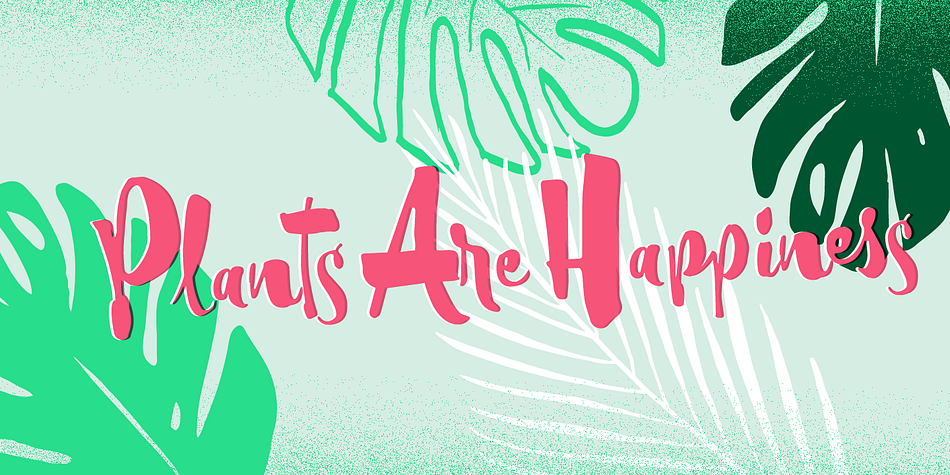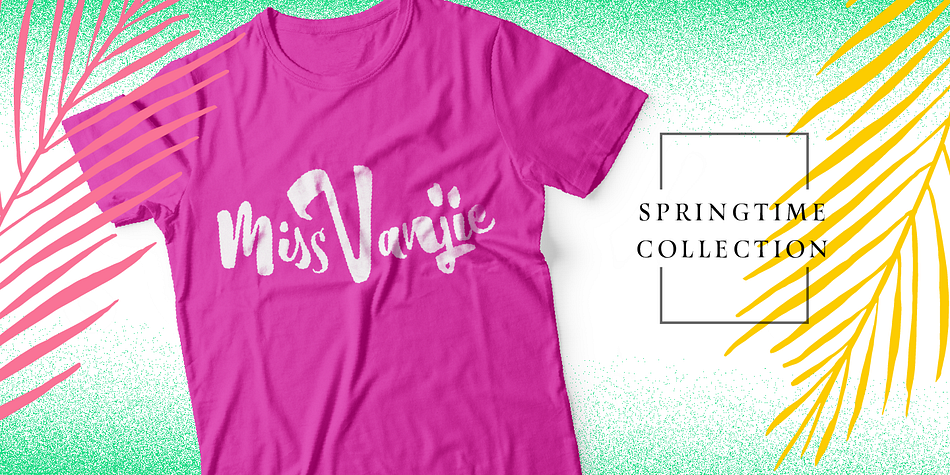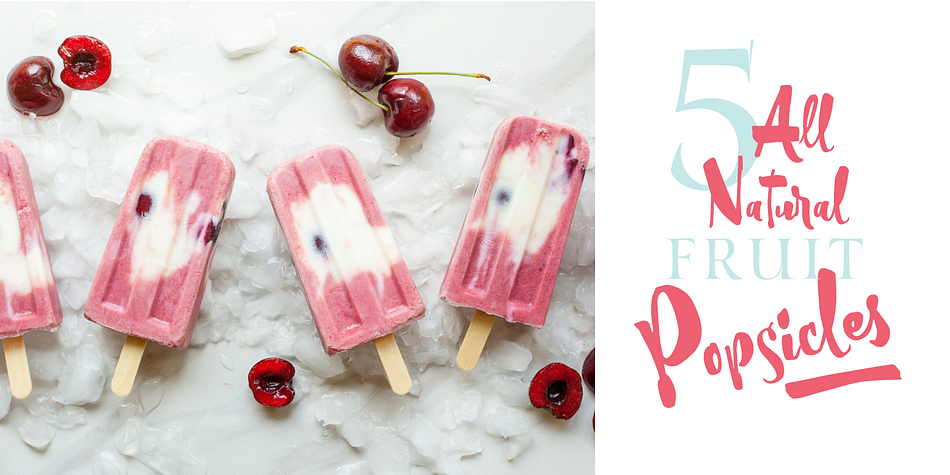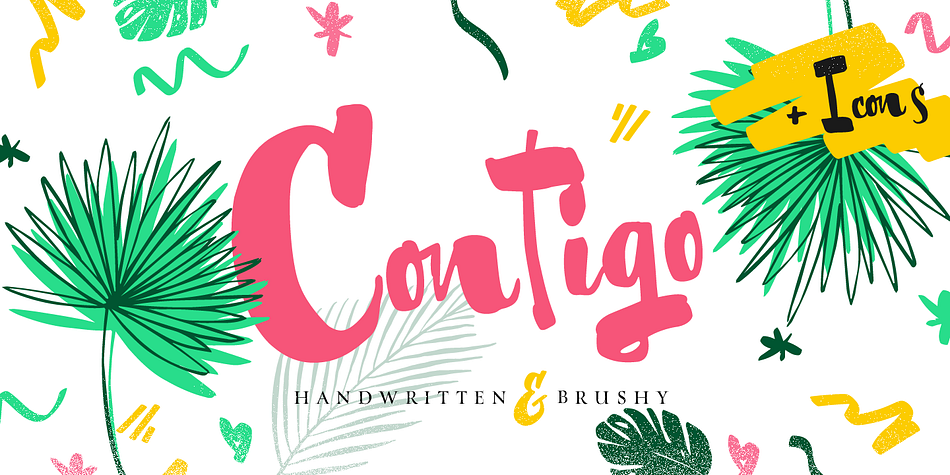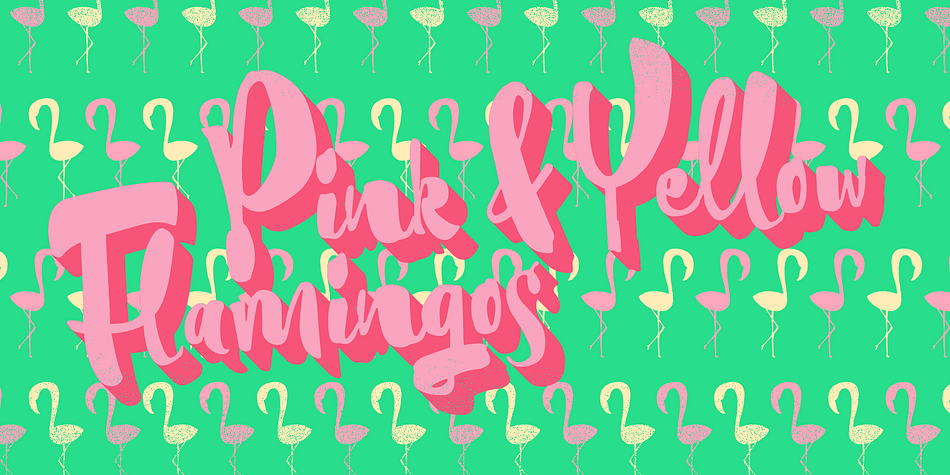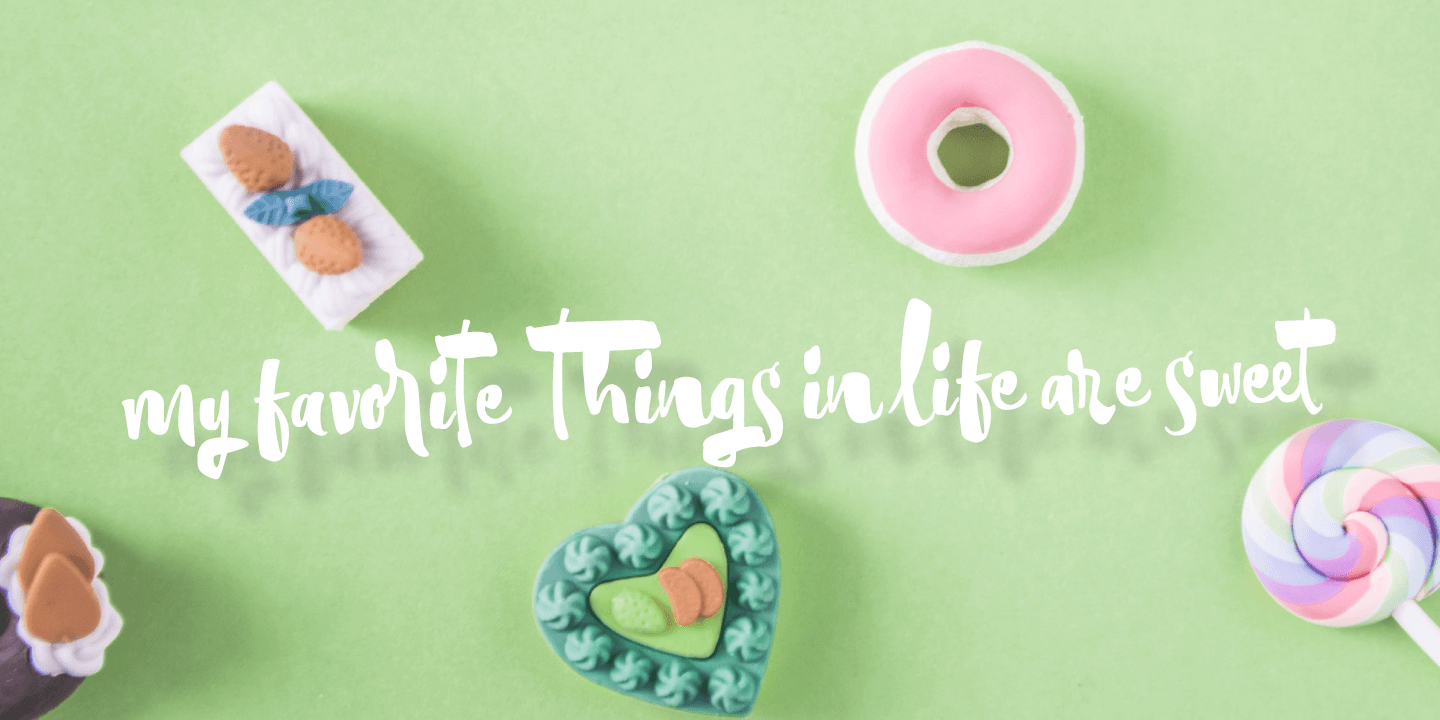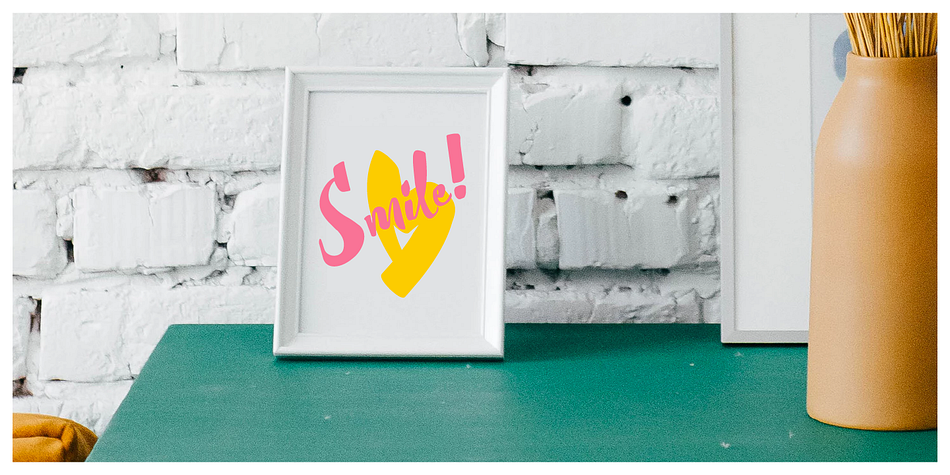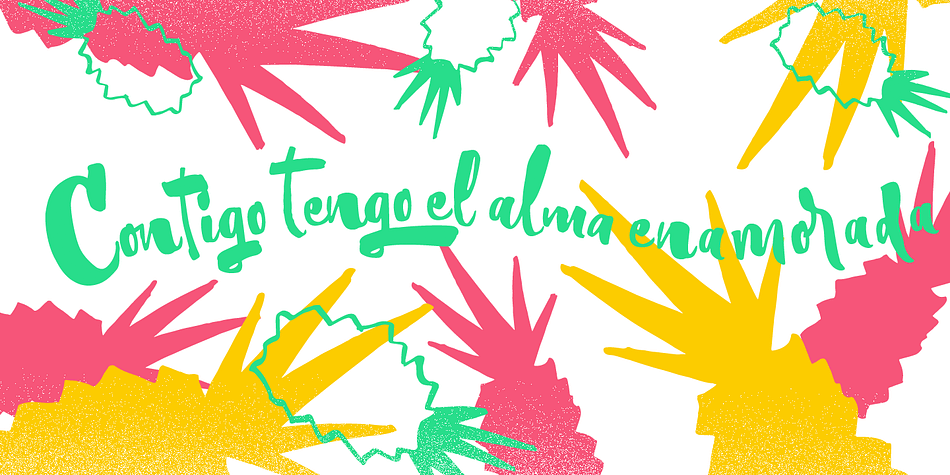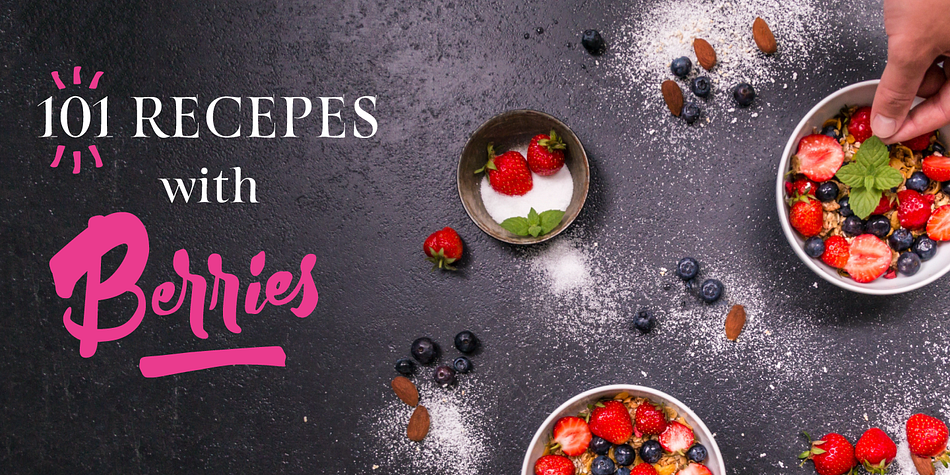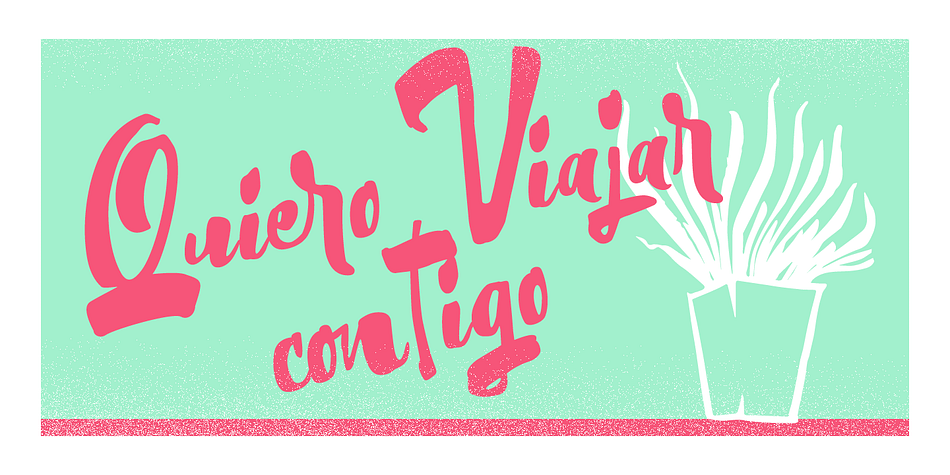
Designed by Giuseppe Salerno and Paco González, Contigo is a brush display, retro and dingbat font family. This typeface has four styles and was published by Resistenza.es.
Contigo means “With You”!
Contigo Is our new brushy script for your summer cards and gifts. This script has a lot of contrast created with a lot of pressure and release of the brush pen. The icon set contains tropical elements like leaves, pink flamingos, pineapple and more.